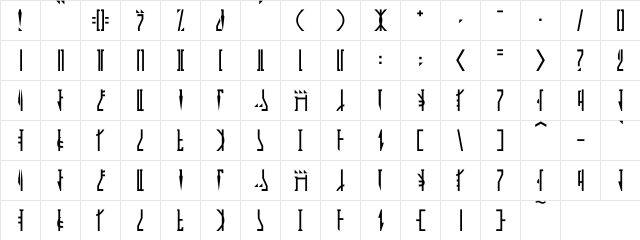
Mandalorian Regular
Design Context for Mandalorian Typeface
Mandalorian is a composed and adaptable typeface that performs quietly and consistently across a wide range of design contexts.
Pro Tip: Use Mandalorian in both headline and body roles to test its range before committing to a single application.